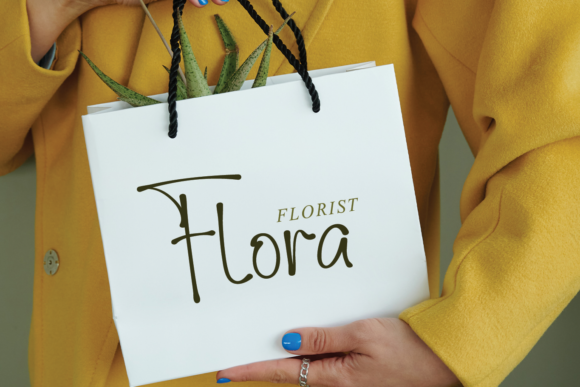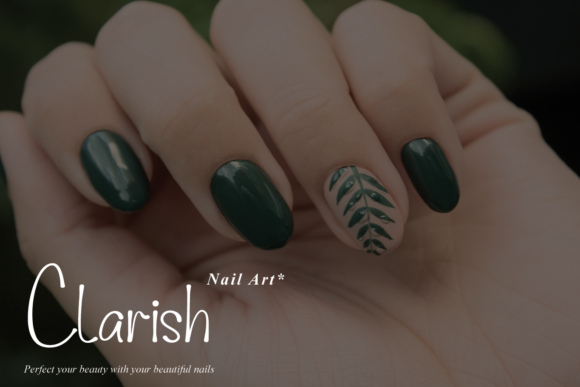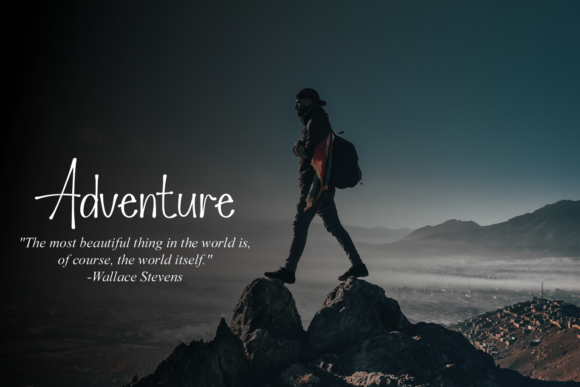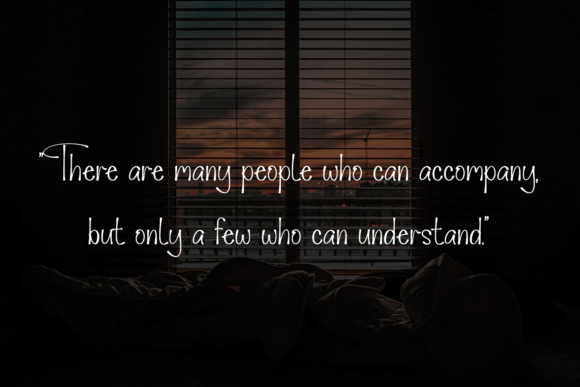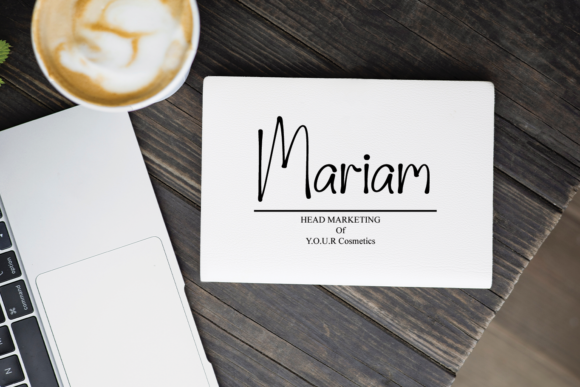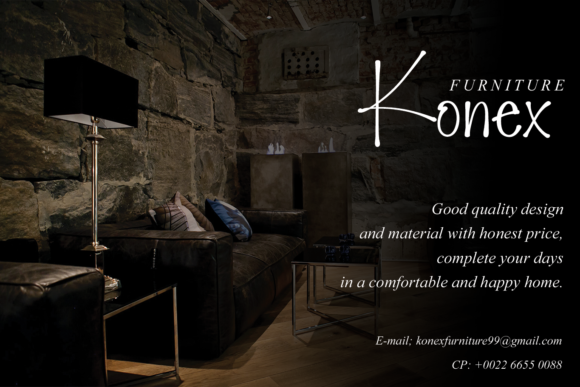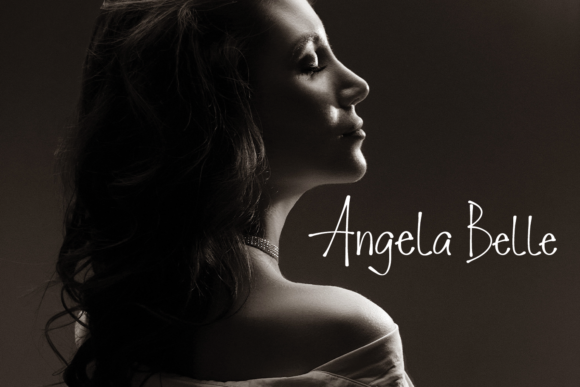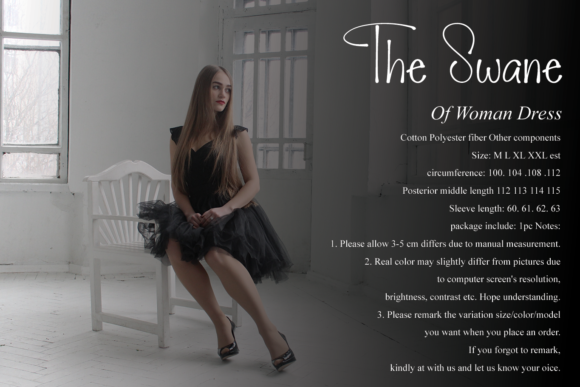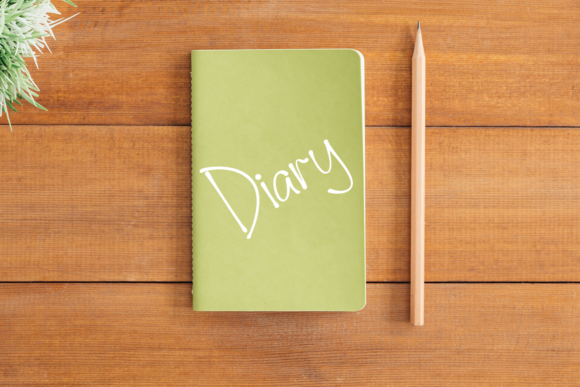
The Vintage Font
About The Vintage Font
The Vintage font exudes a perfect blend of sophistication and asymmetry, creating a distinctive aesthetic that captivates the eye. This font is a stunning choice for various design applications, including wedding invitations, thank-you cards, quotes, greeting cards, logos, business cards, and any other project that calls for a customized and unique touch.
At its core, The Vintage font evokes a sense of timeless elegance. The carefully crafted letterforms showcase a sophistication that adds a touch of refinement to any design. The asymmetrical elements contribute to its uniqueness, setting it apart from more conventional typefaces and making it an ideal choice for projects that demand individuality.
The Vintage font particularly shines on wedding invitations, infusing the text with a sense of grace and charm. Its asymmetrical design adds a modern twist to the classic elegance, creating a visually appealing and memorable impression. The font is equally well-suited for thank-you cards, where it adds a personalized touch to express gratitude in a stylish manner.
Quotes and greeting cards come to life with The Vintage font, as it lends an artistic and customized feel to the text. The combination of sophistication and asymmetry adds depth and character, making the words more impactful and visually engaging. This font is a versatile tool for expressing sentiments in a unique and memorable way.
In the realm of branding, The Vintage font proves to be a standout choice for logos and business cards. Its customized touch adds a level of personality and distinction, helping businesses create a strong visual identity. The asymmetrical elements contribute to a dynamic and eye-catching design that leaves a lasting impression on clients and customers.
In summary, The Vintage font is a versatile and visually stunning choice for a range of design projects. Its combination of sophistication and asymmetry makes it particularly well-suited for wedding invitations, thank-you cards, quotes, greeting cards, logos, business cards, and any other design where a customized touch is desired. Elevate your projects with The Vintage font and infuse them with a timeless and unique charm.